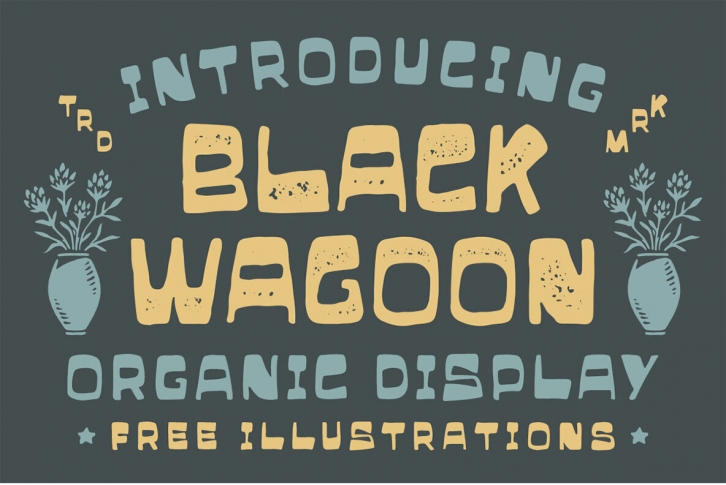
Black Wagoon is organic display font with unique and fun looks. It comes with free hand drawn illustrations which you can use to create badge or tshirt illustration intantly. This font is also suitable to be applied especially in logo, and the other various formal forms such as invitations, labels, logos, magazines, books, greeting / wedding cards, packaging, fashion, make up, stationery, novels, labels or any type of advertising purpose.
- regular and stamped version
- numbers and punctuation
- multilingual & ligatures